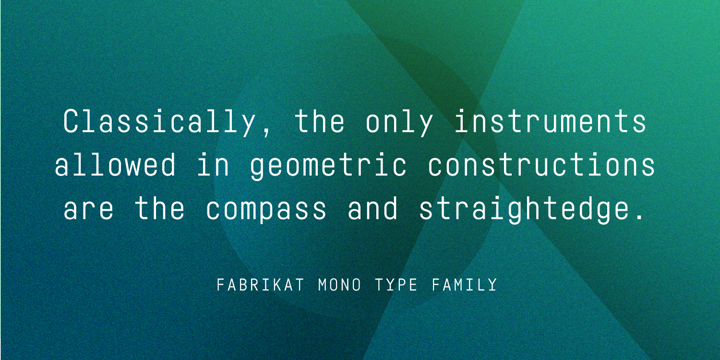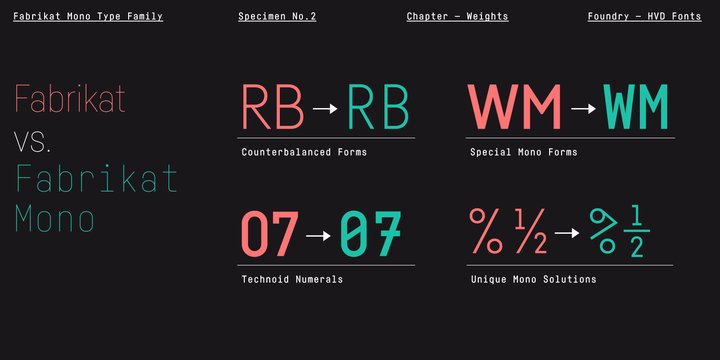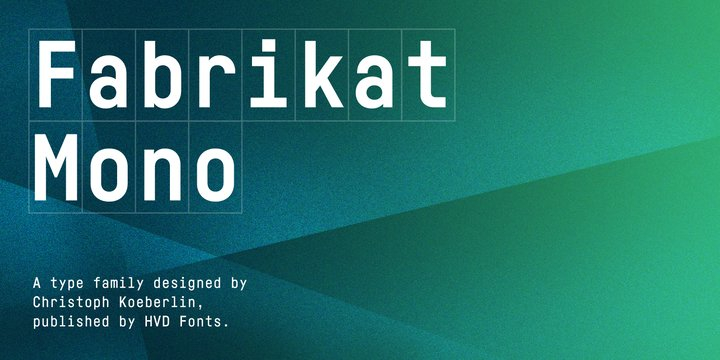
Designed by Christoph Koeberlin and Hannes von Döhren, Fabrikat Mono is a sans serif font family. This typeface has fourteen styles and was published by HVD Fonts.
Fabrikat Mono is a type family designed by Christoph Koeberlin. The monospaced Sans Serif family is published by HVD Fonts and consists of seven weights plus matching italics.
It is an addition to the popular
Fabrikat
type family that emphasises its engineering roots. Compared to Fabrikat, the Mono version evens out not only the characters’ variable widths but also its more subtle characteristics: Letters like B and R are counterbalanced, the height difference between caps, ascenders and even “t” are eliminated, while characters like the percent sign together with the stressed punctuation give a nod to typewriter typefaces.
The type family is equipped for complex, professional typography with OpenType Features like alternate letters, arrows and an extended character set to support Central and Eastern European as well as Western European Languages.